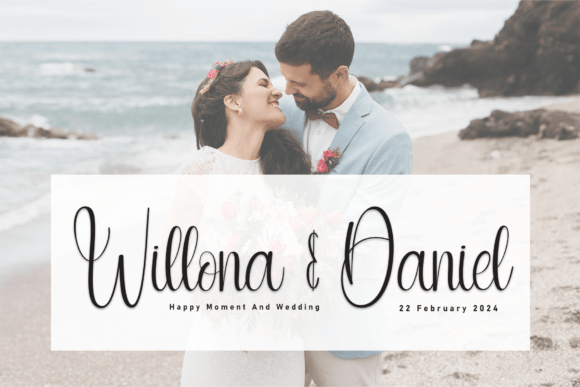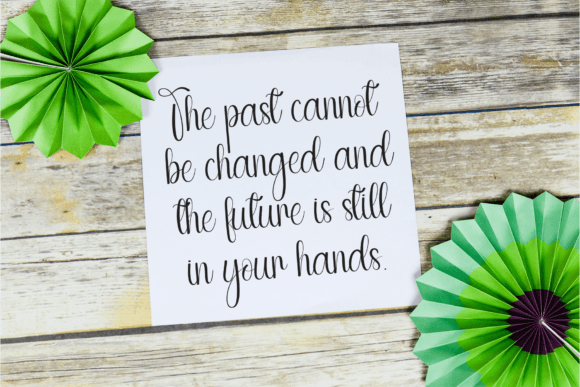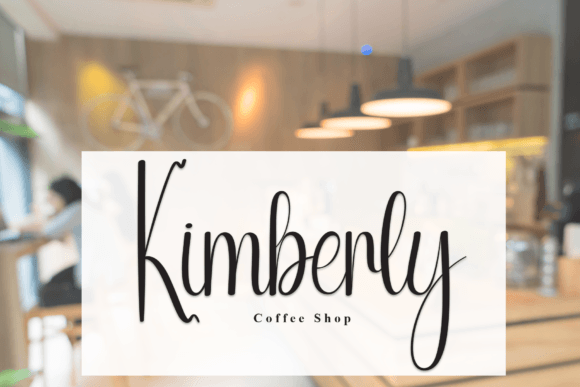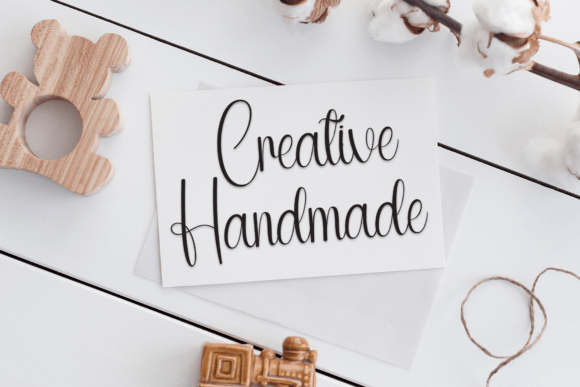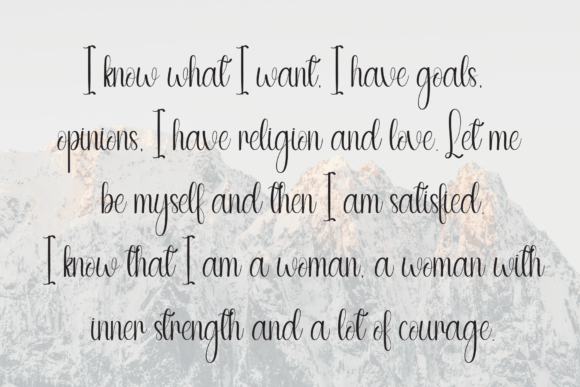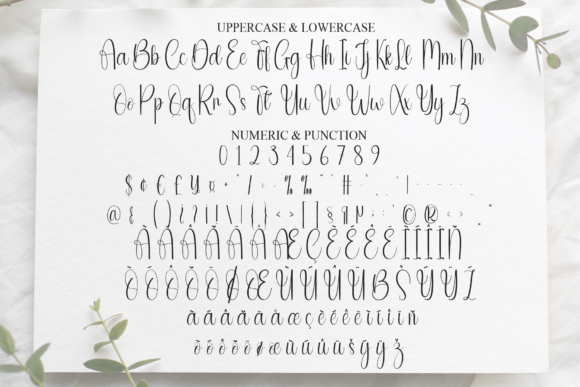
The Sweet Charm of Calligraphy Font: A Designer’s Delight
I’ll never forget the time I was working on a wedding invitation project, and my client asked for a font that was both elegant and playful. I scoured the internet, tried out countless fonts, but nothing seemed quite right. That was until I stumbled upon Calligraphy Font. This sweet and friendly handwritten font won my heart, and I’ve been hooked ever since!
- ✅ Extremely versatile and adaptable to various design projects
- ✅ Cute and fun, perfect for adding a personal touch to designs
- ✅ Easy to read, even in smaller font sizes
- ✅ Beautifully crafted, with a high level of attention to detail
Small Quirks to Keep in Mind 🤔
- ⚠️ Some letters may have slightly inconsistent spacing, which can affect the overall flow of text
- ⚠️ Limited availability of special characters and symbols
The Story Behind Calligraphy Font: Designer Inspiration
Calligraphy Font was created with the intention of capturing the essence of traditional calligraphy, while making it accessible to a wider audience. The designer aimed to create a font that was both elegant and approachable, perfect for a variety of design projects. Although the designer’s background is shrouded in mystery, it’s clear that they poured their heart and soul into crafting a truly unique and beautiful font.
Q: What makes Calligraphy Font so special?
A: Calligraphy Font stands out due to its unique blend of elegance and playfulness, making it perfect for a wide range of design projects.
Q: Is Calligraphy Font suitable for body text?
A: While Calligraphy Font is beautiful, it’s best suited for headings, titles, and short paragraphs. For longer body text, a more traditional font might be more suitable.